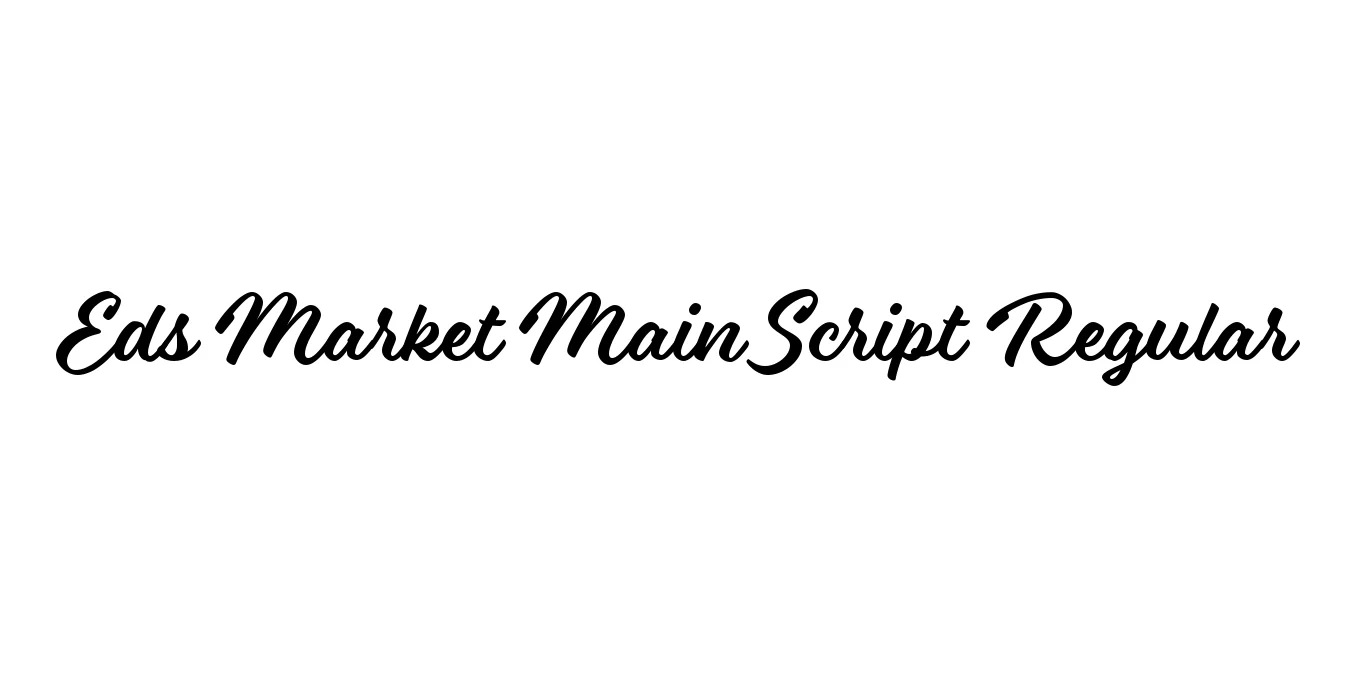
Eds Market Main Script Regular
Designed by Laura Worthington
Eds Market Main Script Regular is a standout member of the Ed’s Market collection, a comprehensive typeface family designed by Laura Worthington. This font is a nostalgic tribute to the hand-painted signage found in mid-century grocery stores and classic American diners. It captures the authentic, slightly imperfect essence of a skilled sign painter’s brush, offering a warm and approachable aesthetic that avoids the clinical feel of standard digital scripts.
As a connected brush script, it features fluid transitions and a rhythmic flow that makes it highly legible even in display settings. The font is packed with OpenType features, including alternates and ligatures that help mimic the natural variations of hand-lettering. Whether used for a local brand or a large-scale advertising campaign, Eds Market Main Script brings a sense of personality, heritage, and artisanal craftsmanship to any creative project.
Eds Market Main Script Regular Best Uses
Excellent for artisanal food brands, cafes, and small business logos.
Ideal for labels and product wraps requiring an organic, handmade look.
Perfect for menu boards, storefront windows, and promotional posters.
Great for creating friendly and high-engagement quote graphics.